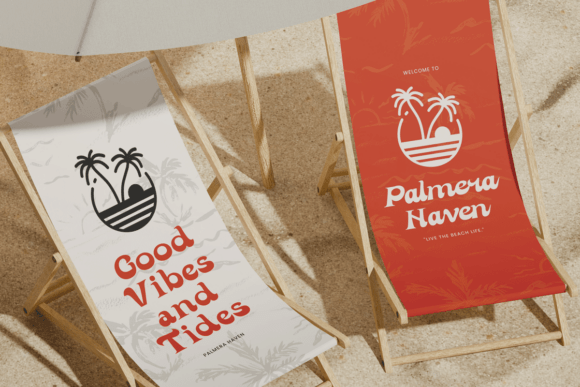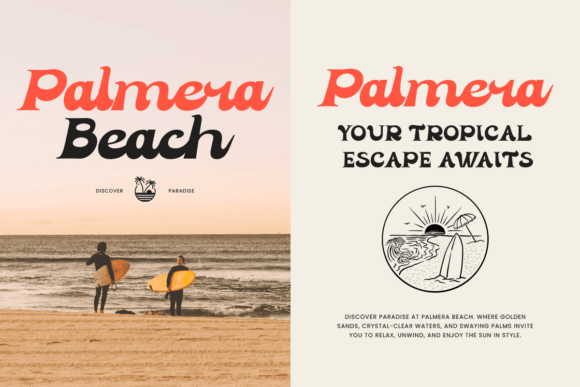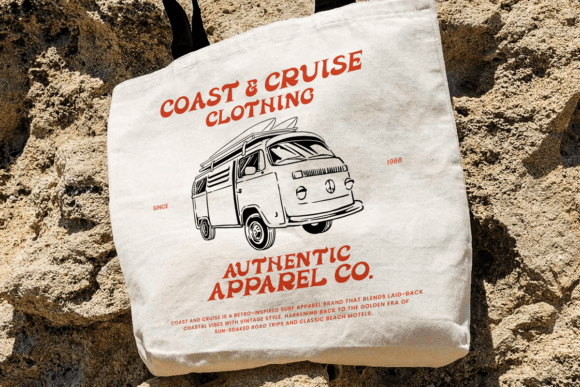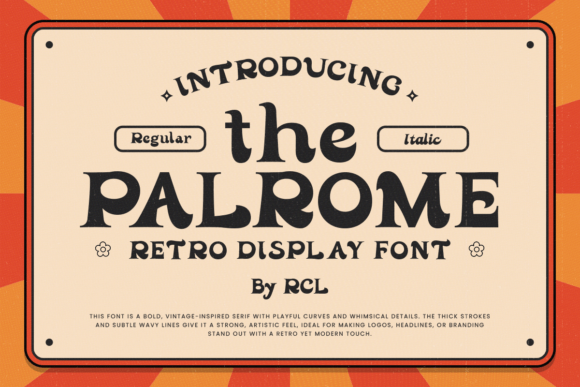
Introduction to Palrome Font
Palrome is a bold retro display font inspired by the groovy vibes of the 70s and 80s.
With playful curves and whimsical details, Palrome captures the perfect balance between nostalgic charm and modern aesthetics It’s designed to make your designs stand out with a strong, artistic, and vintage-inspired personality.
Key Features of Palrome Font